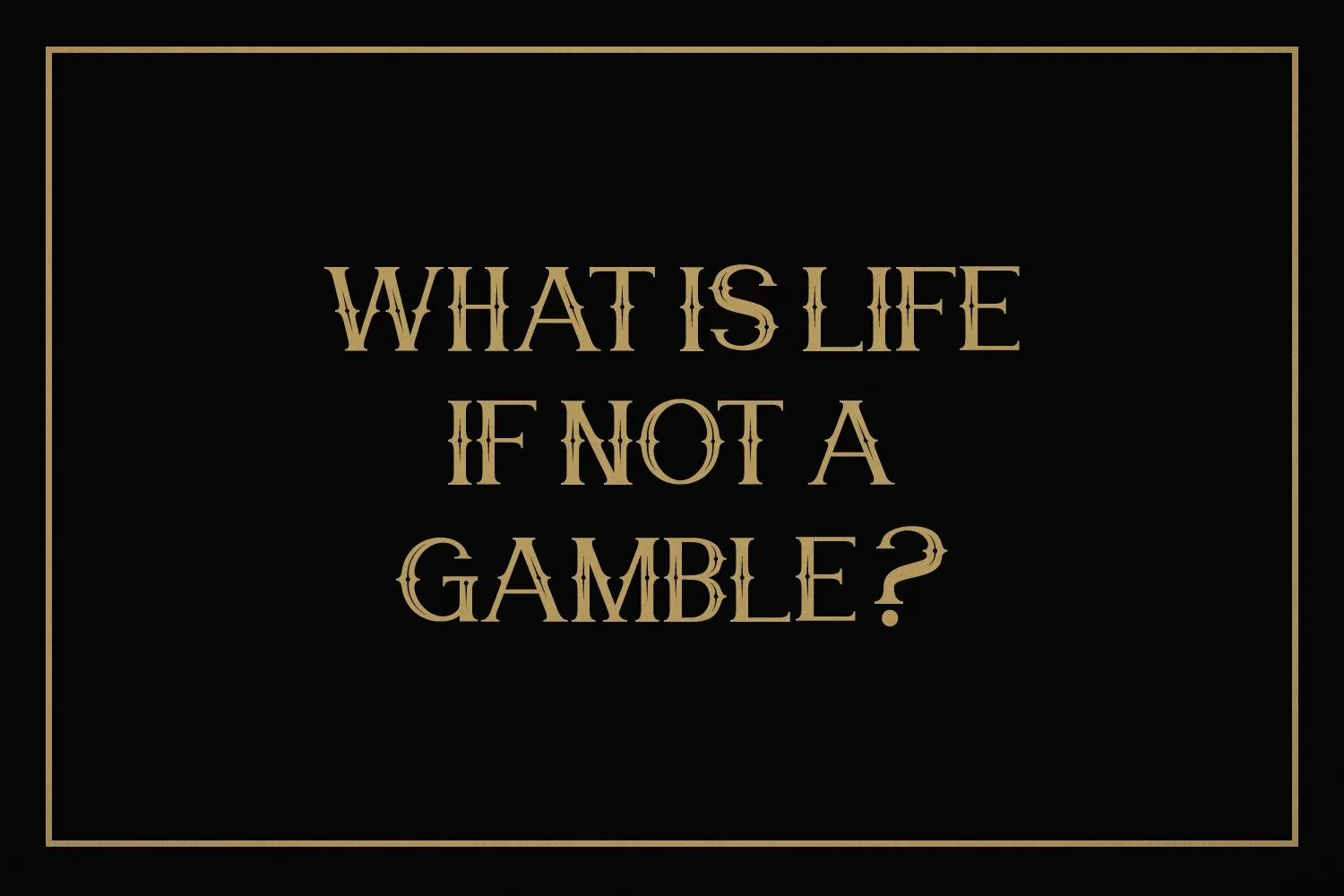
Chief Cart Vintage Typeface
Chief Cart is a handmade Modern Victorian handlettering, which is combining modern and classic typography with some awesome alternates. Yes we back to early 1800s, bring classic touch on this decade.